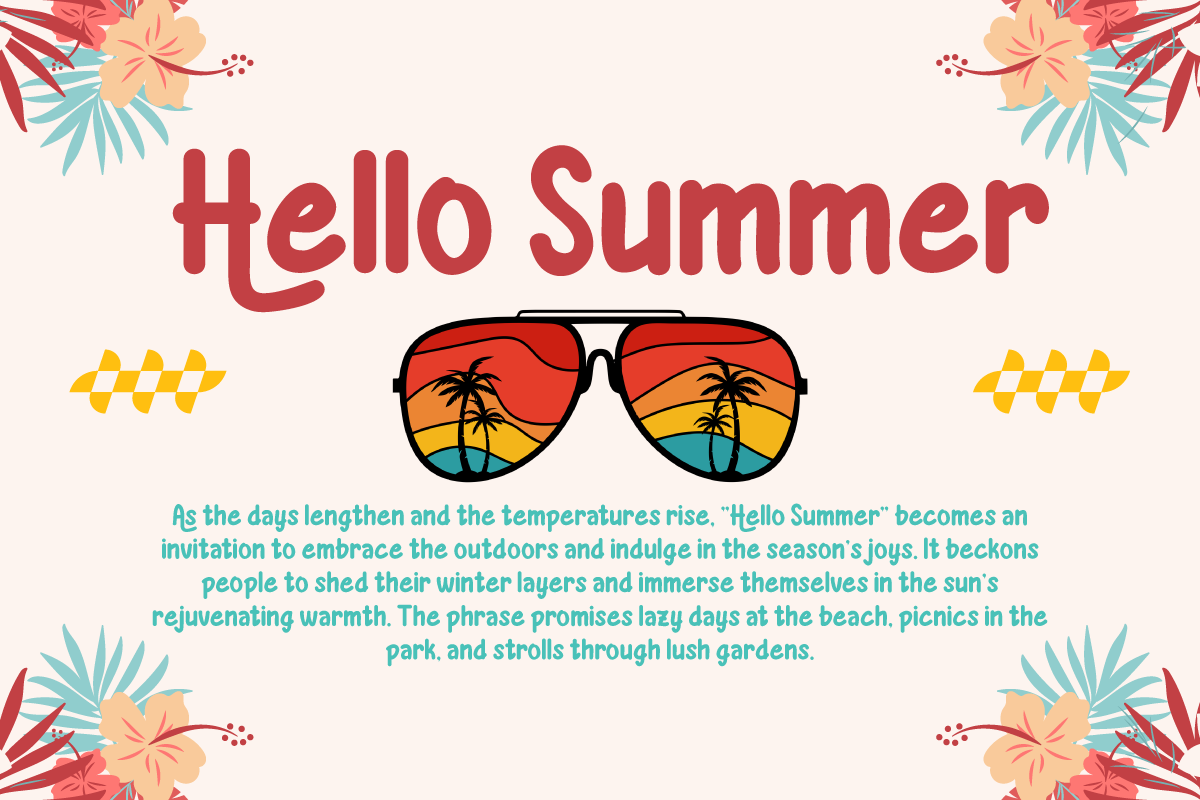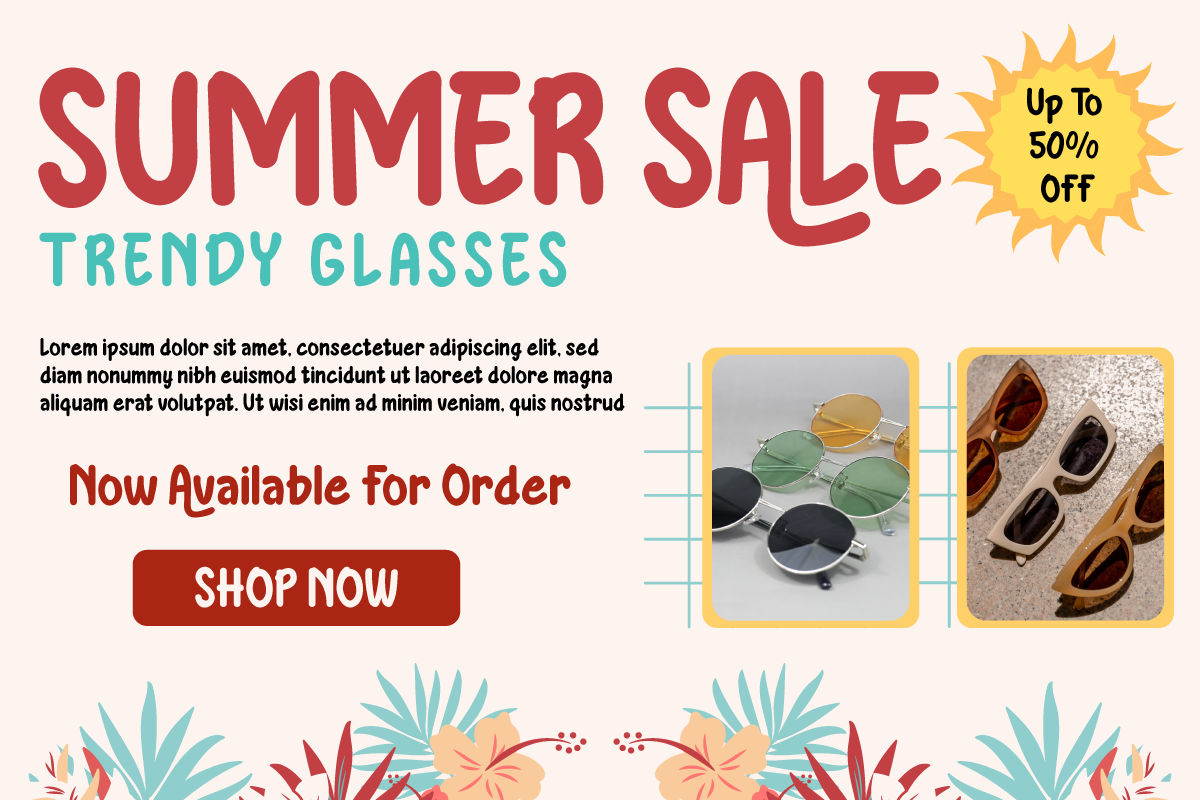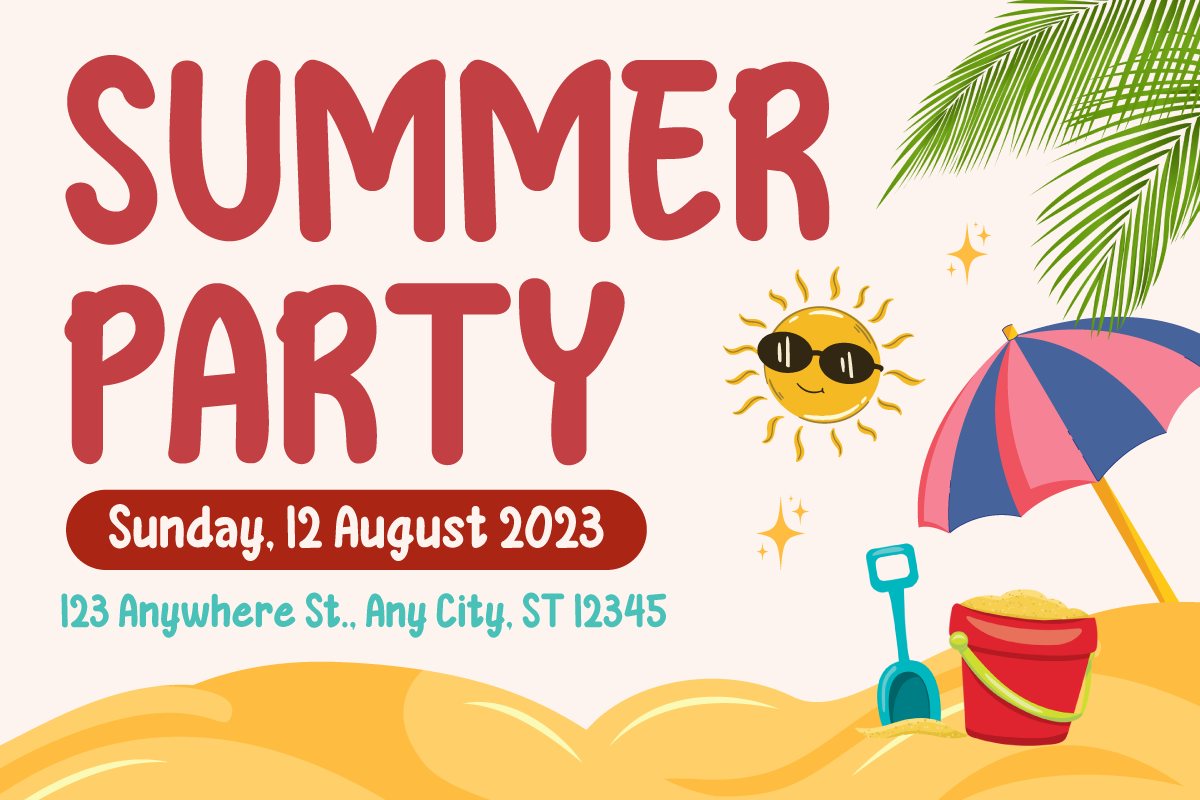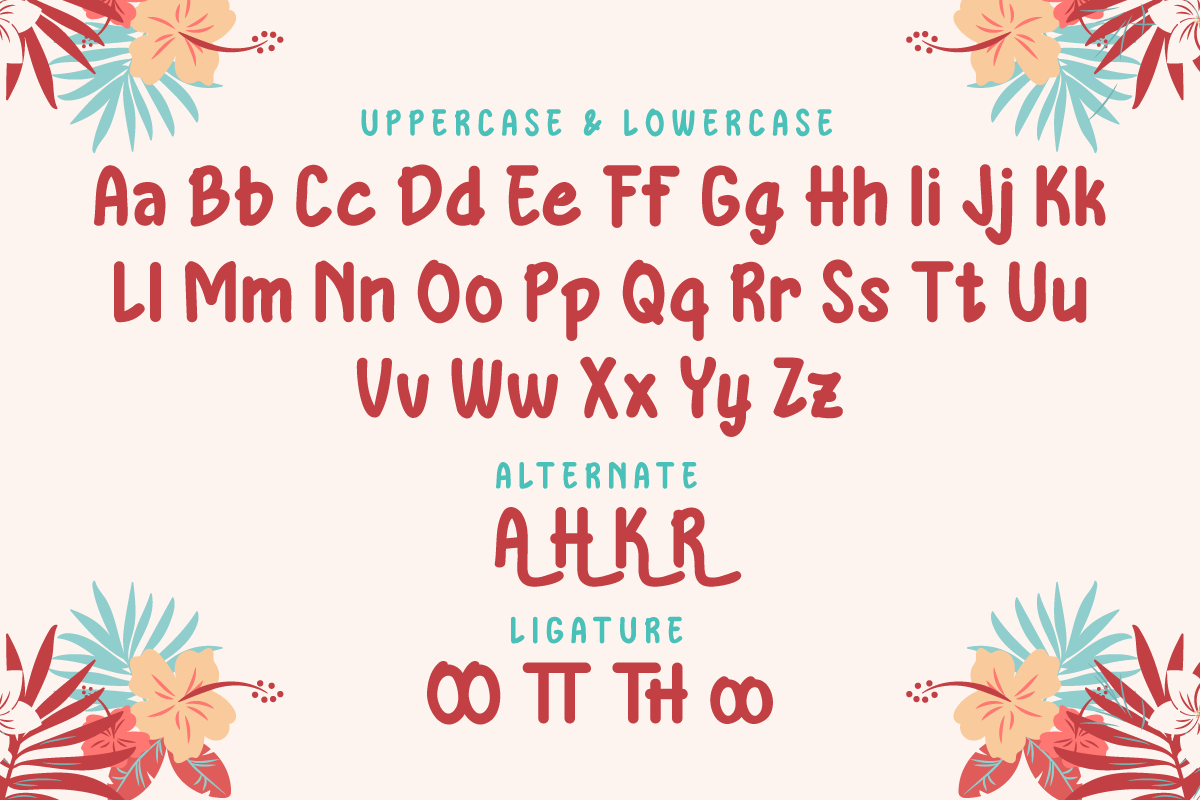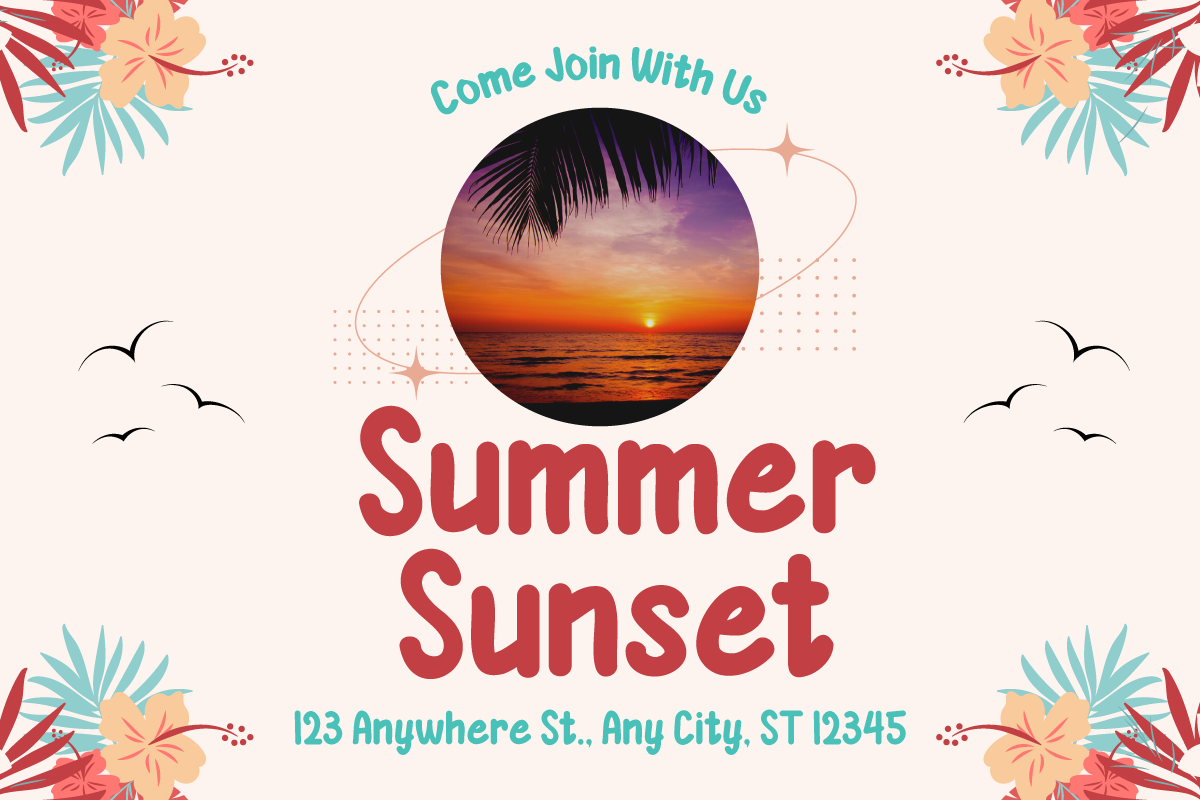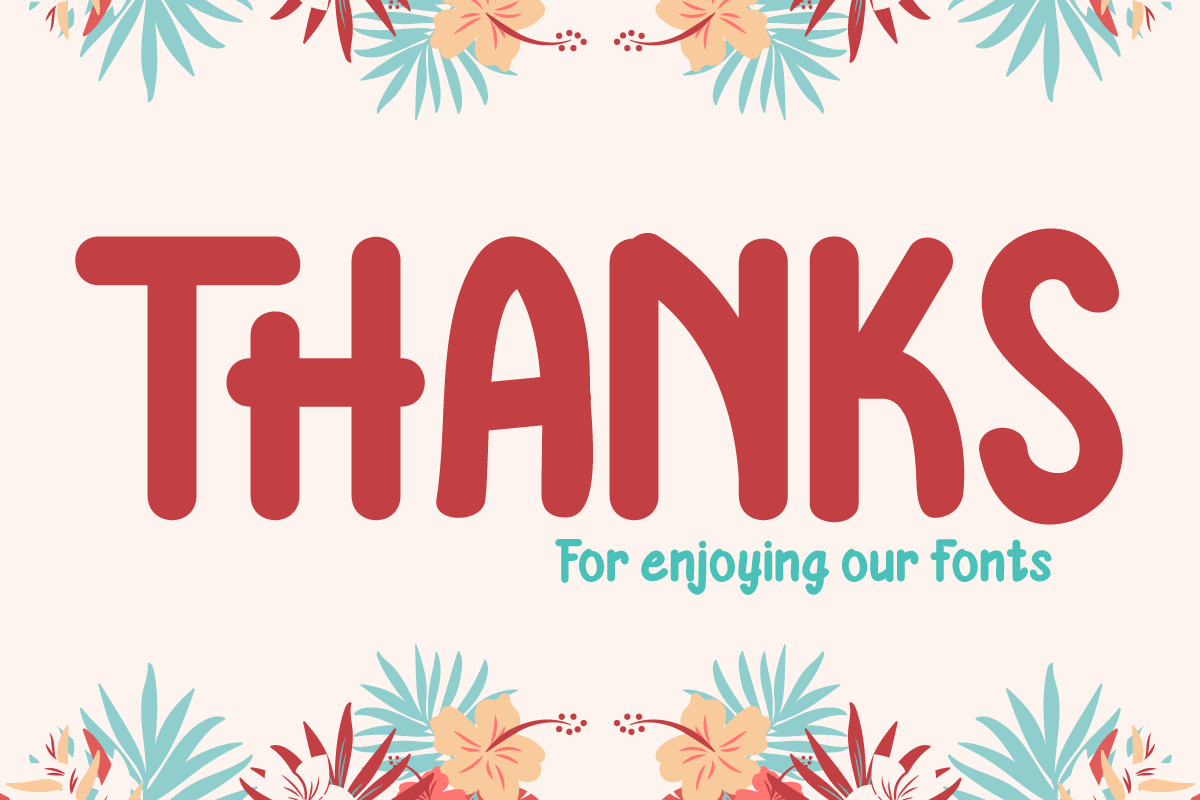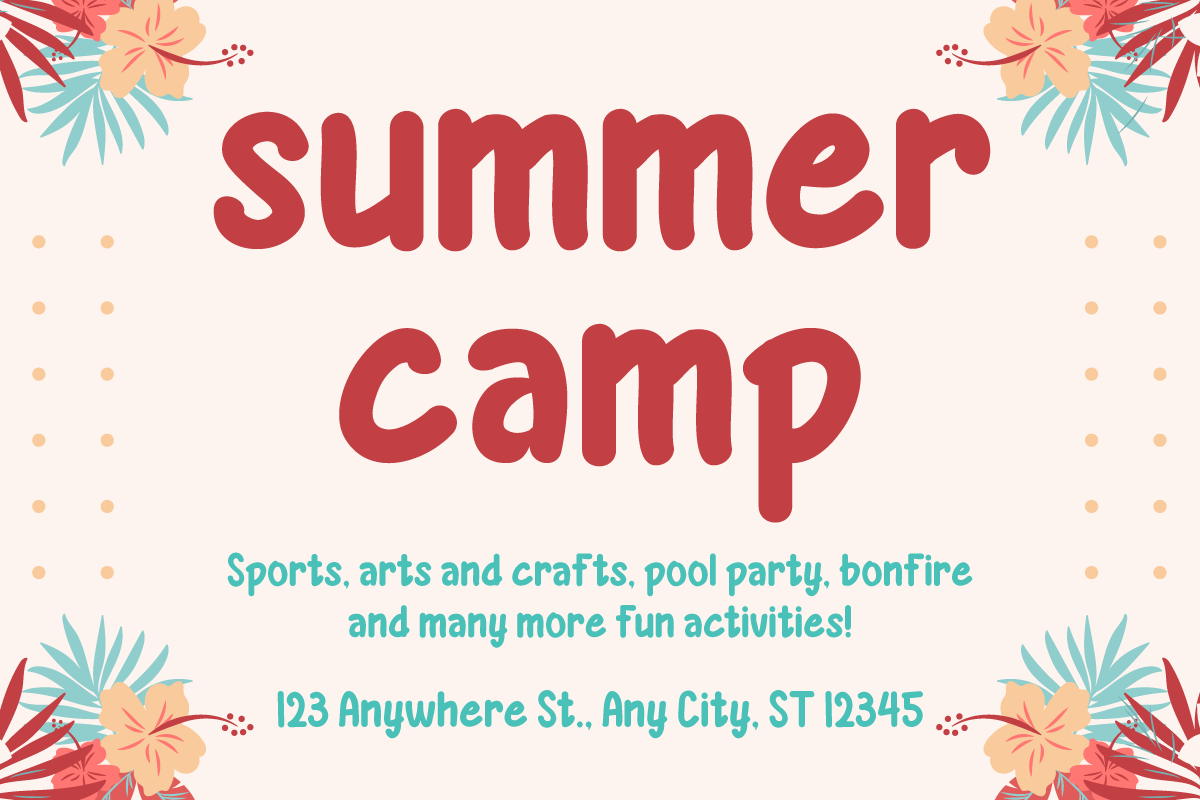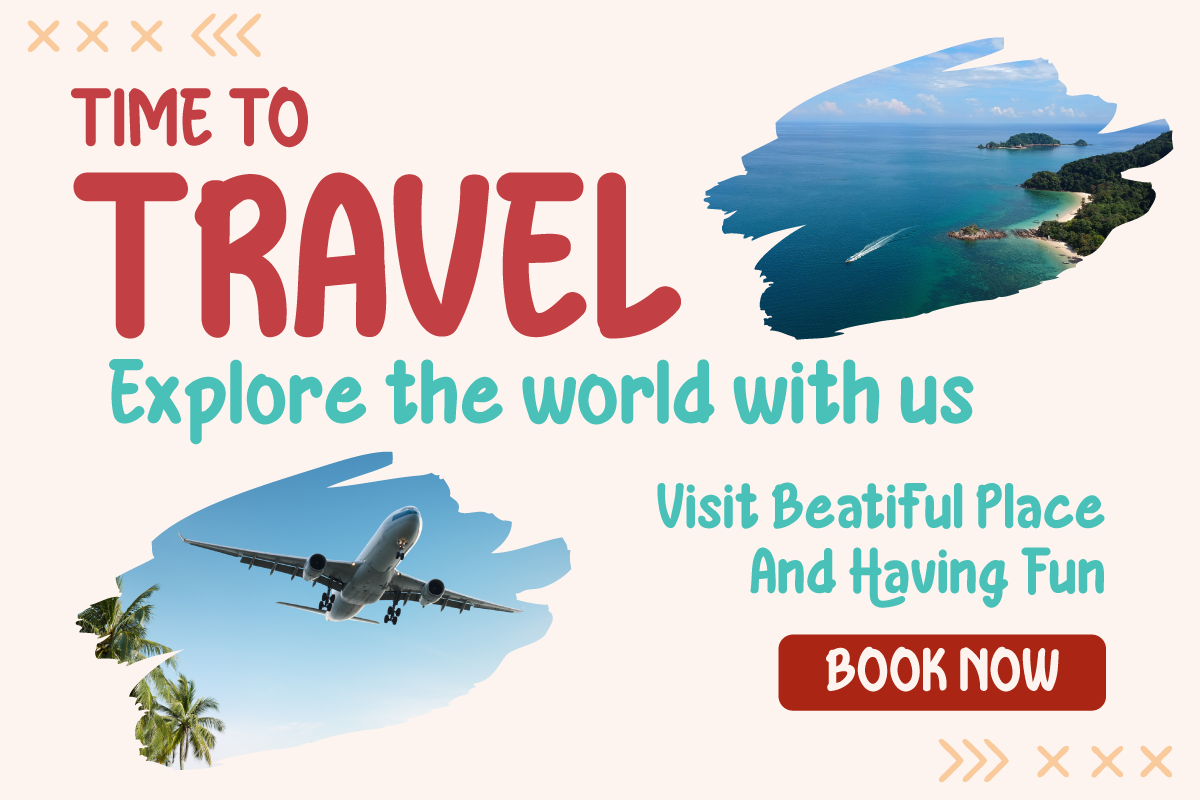
HAYASI | Summer San Serif Display
Introducing "HAYASI Font" - Embrace the Essence of Summer in Your Designs.
Experience the vibrant spirit of summer with HAYASI Font. This font encapsulates the lively and carefree atmosphere of the season, making it the perfect choice for infusing a touch of summer into your creative projects. From beach party invitations to tropical-themed posters, HAYASI Font effortlessly captures attention and brings the warmth of summer to your designs.
Meticulously crafted with the essence of the season in mind, HAYASI Font radiates the energy and joy of summer, creating a lively and inviting ambiance in your designs.
Its versatility knows no bounds, adapting seamlessly to a wide range of summer-inspired design projects, from vacation advertisements to social media graphics.
HAYASI Font also offers a user-friendly experience with OpenType features, ensuring smooth flow and readability in your text. Dive into a world of design possibilities as it supports multiple languages, making your message accessible to a global audience.
Elevate your creative ventures and bask in the summer vibes with HAYASI Font. Explore this unique typeface today and let your designs sizzle with the essence of summer.
- Alternate, Ligature